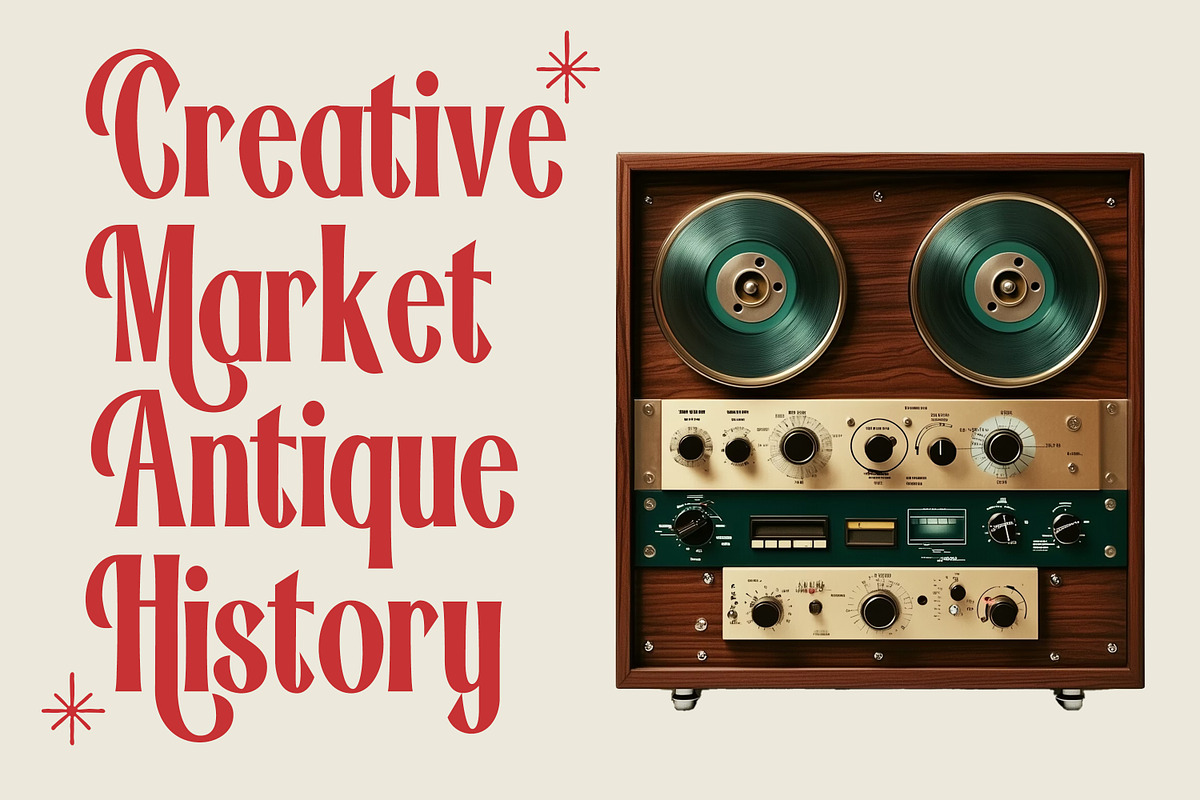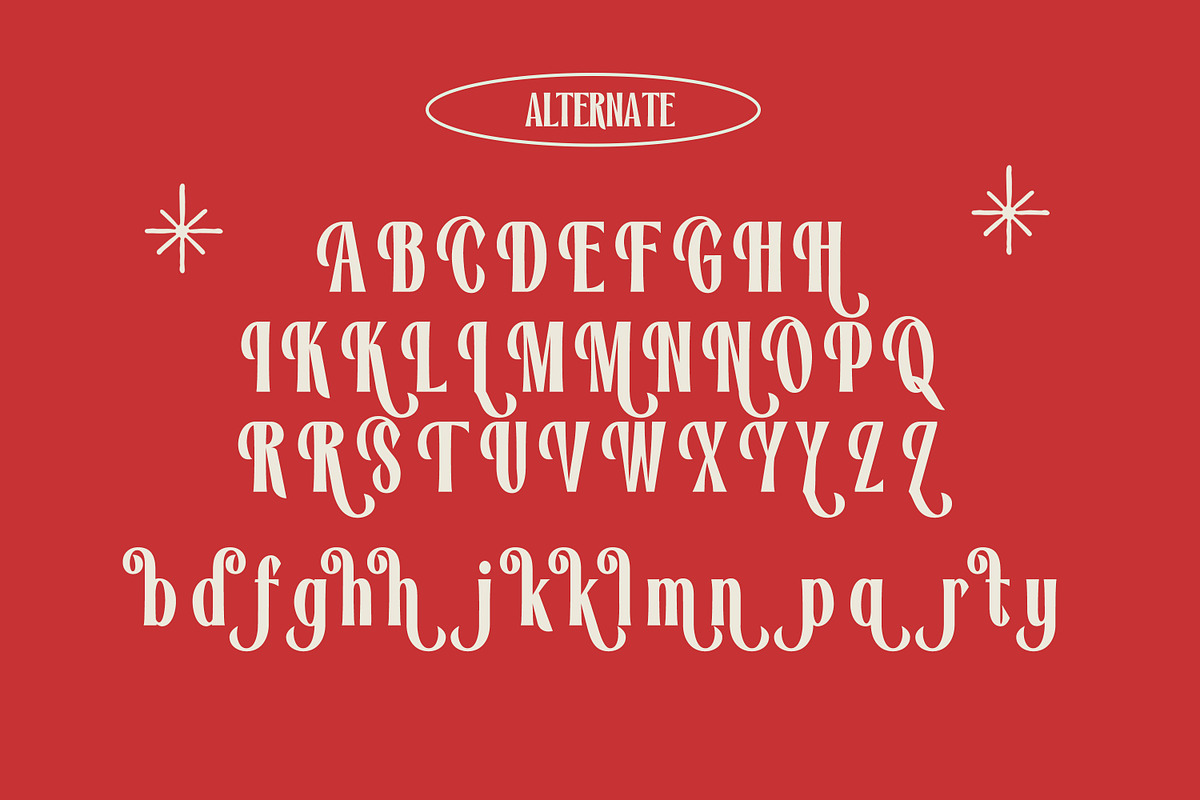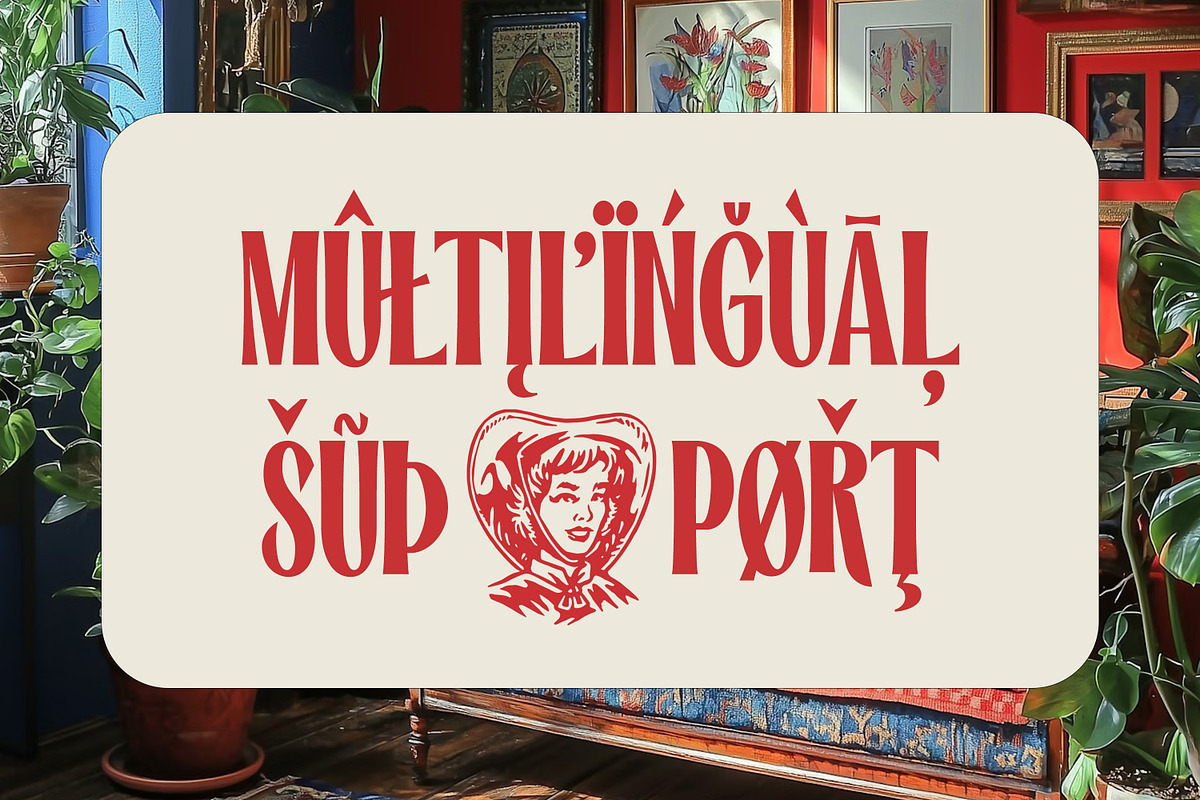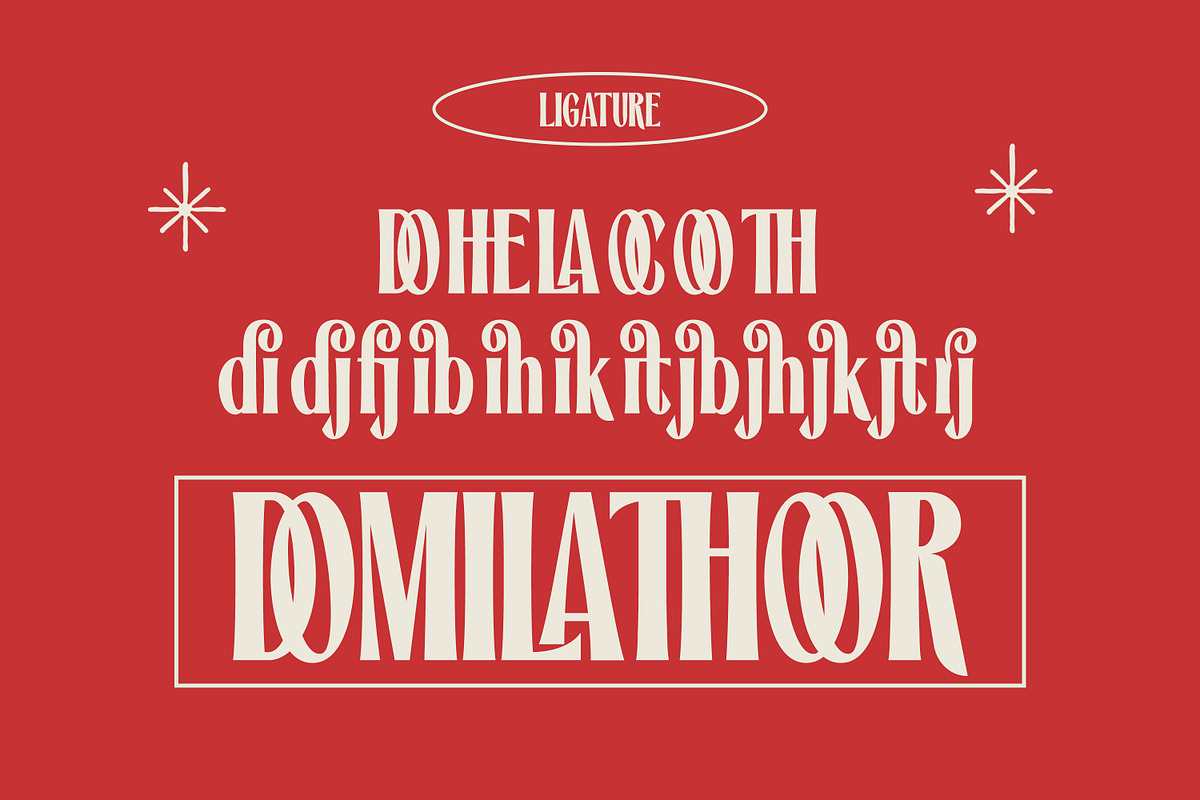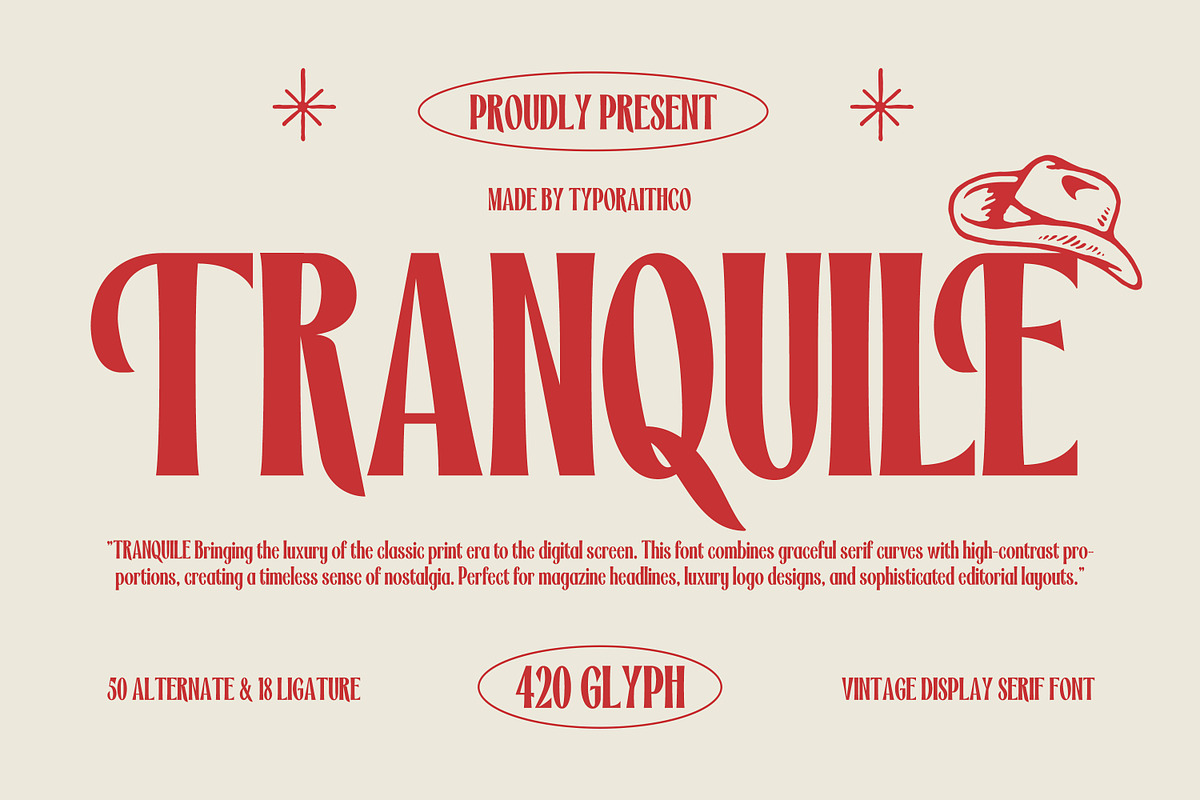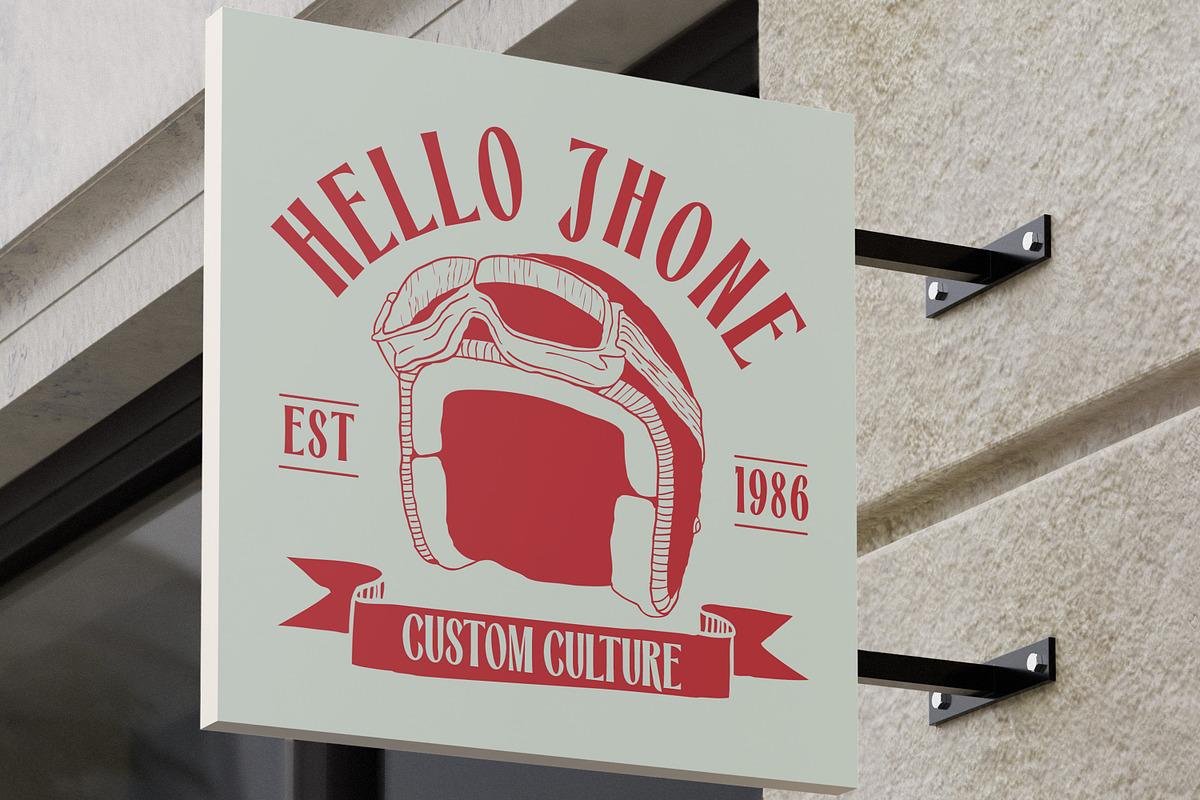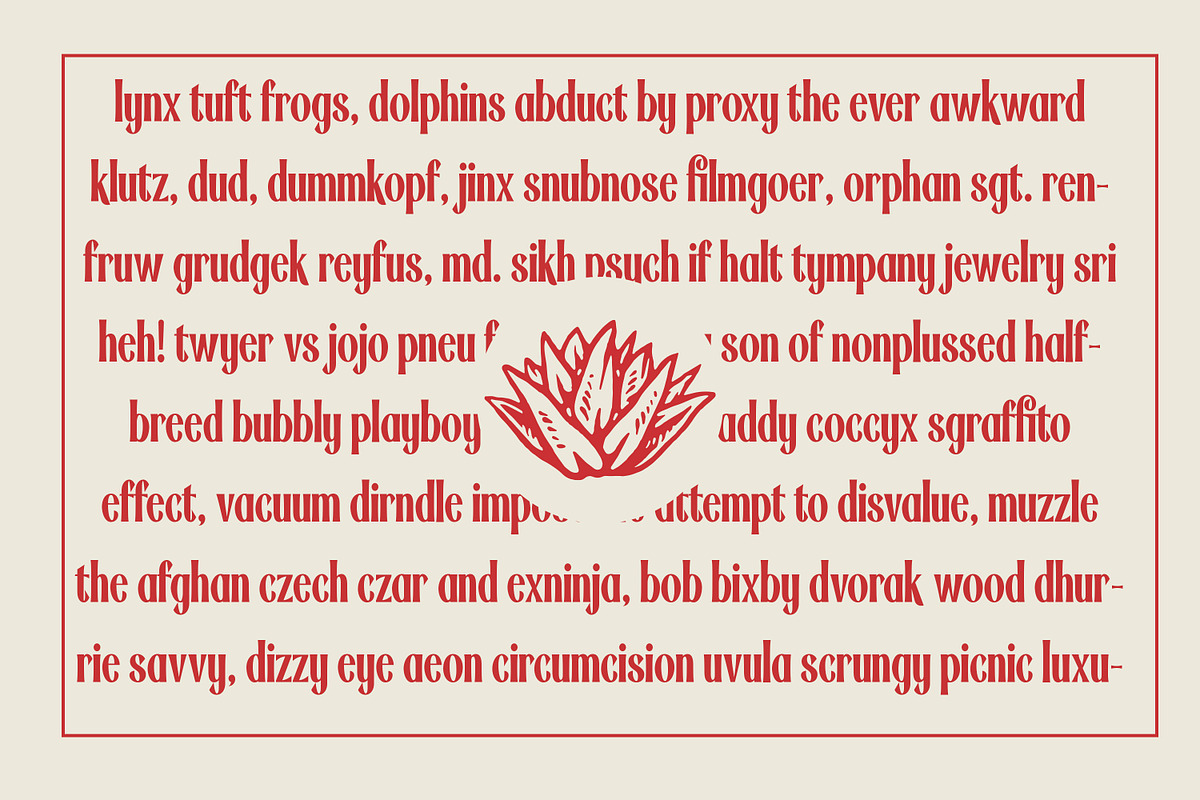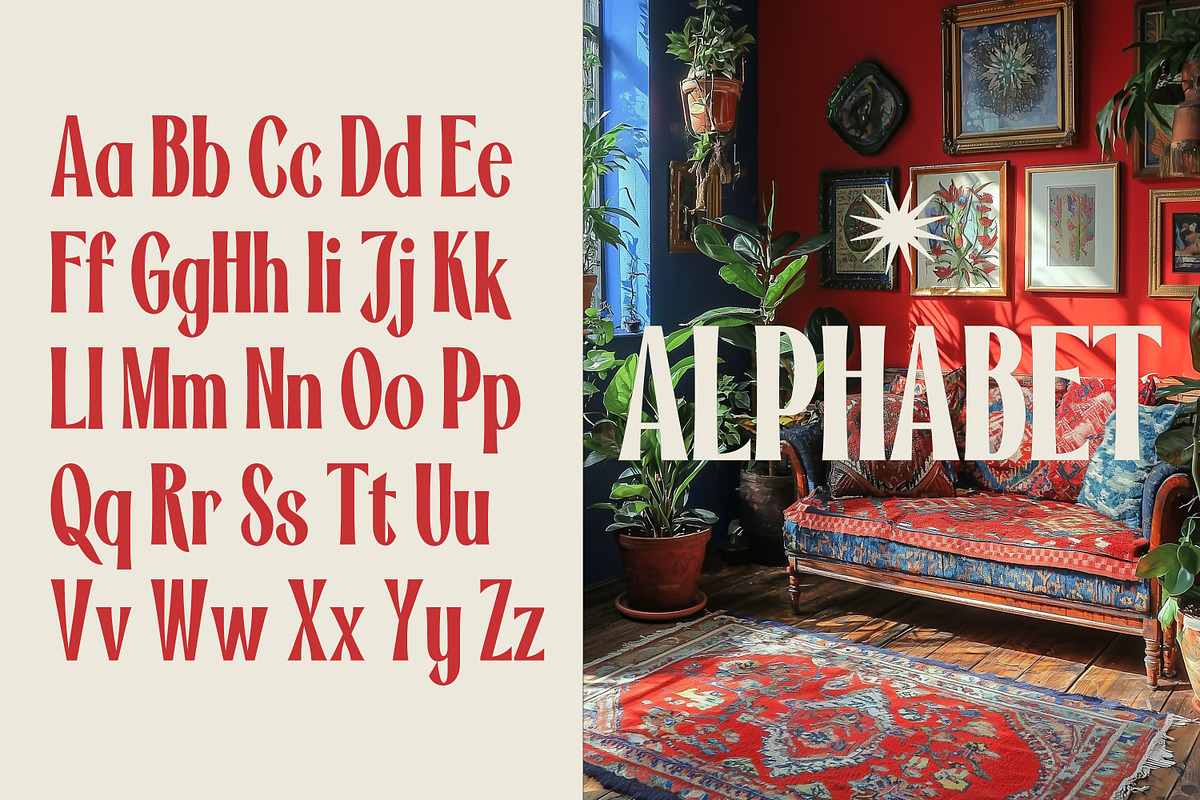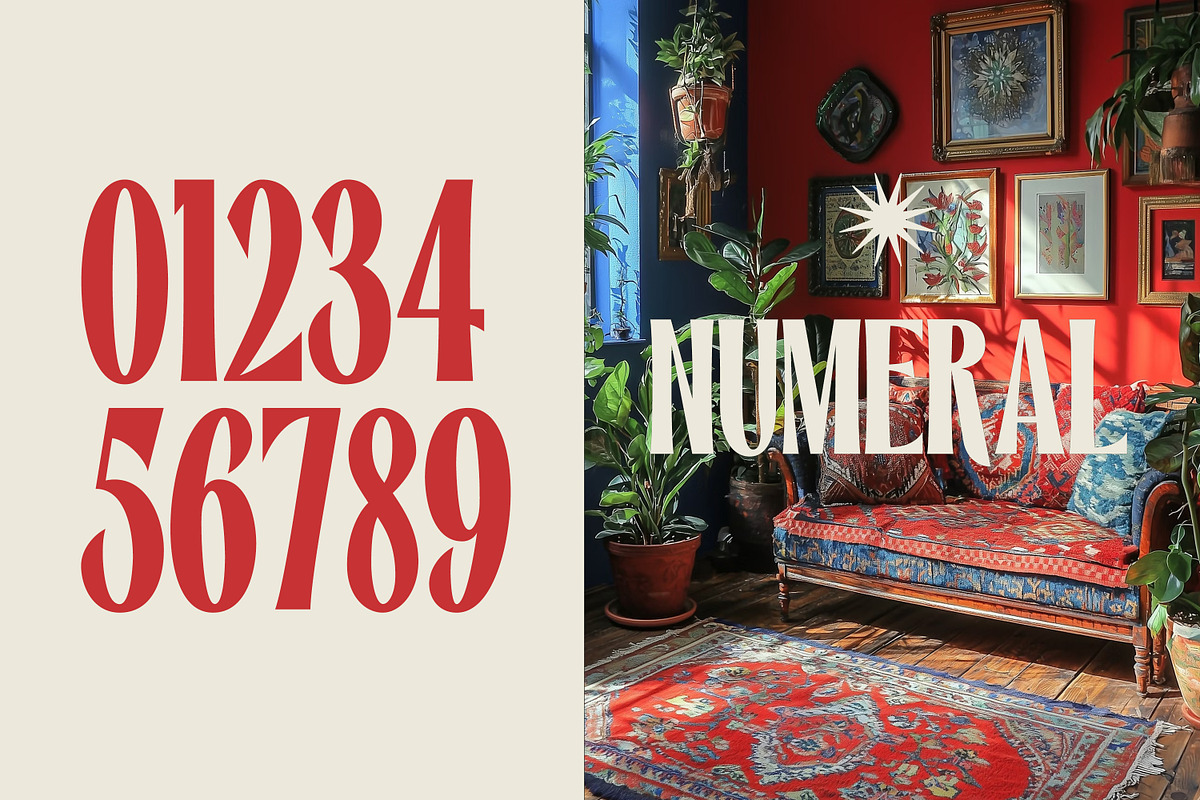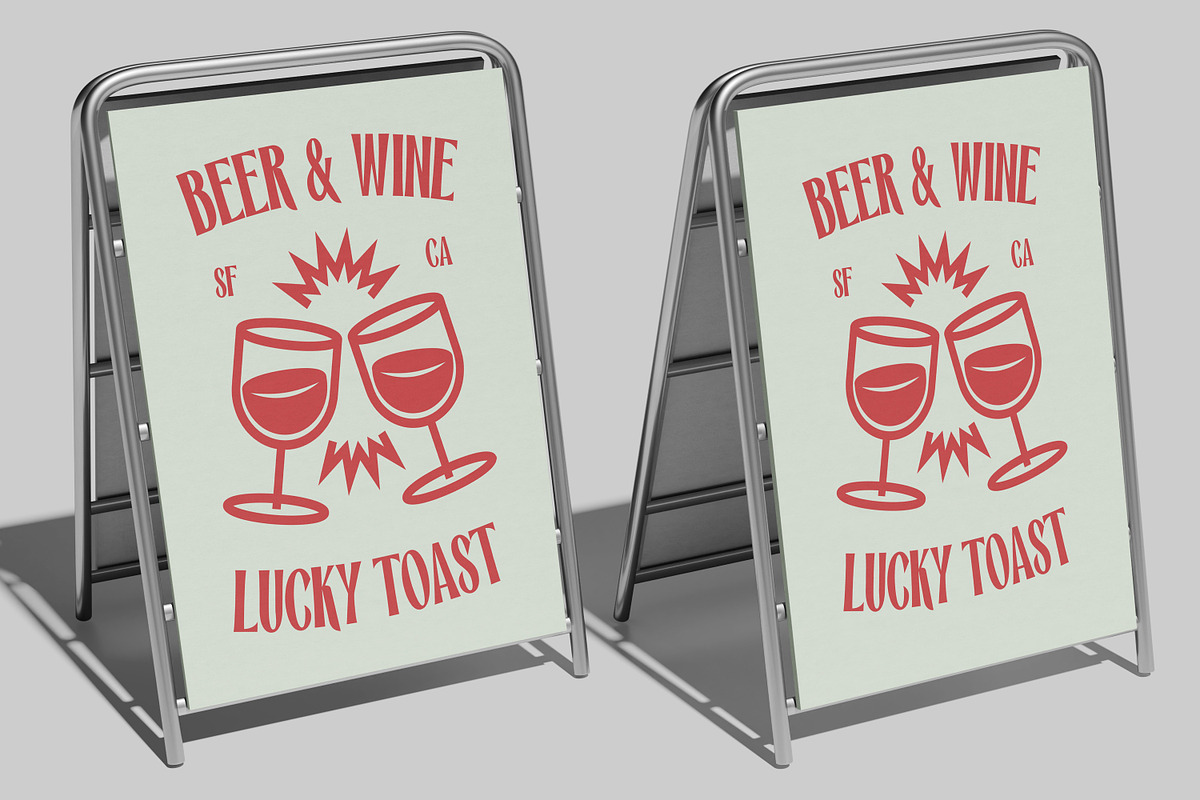
Tranquile | Vintage Display Serif
Tranquile is a vintage display serif font inspired by classic editorial typography and timeless print aesthetics. Featuring elegant high-contrast letterforms, stylish curves, and refined vintage details, this typeface brings a luxurious and nostalgic feel to every design.
Perfect for branding, magazine headlines, logo designs, packaging, fashion editorials, posters, social media graphics, and sophisticated layouts. Tranquile comes with beautiful alternates and ligatures that make your typography look more unique, artistic, and premium.
50 Alternates
18 Ligatures
420 Glyphs
Perfect For: Branding, Logo Design, Editorial Layout, Magazine, Packaging, Posters, Fashion Projects, Social Media, Luxury Typography
Bring timeless vintage elegance into your creative projects with Tranquile.